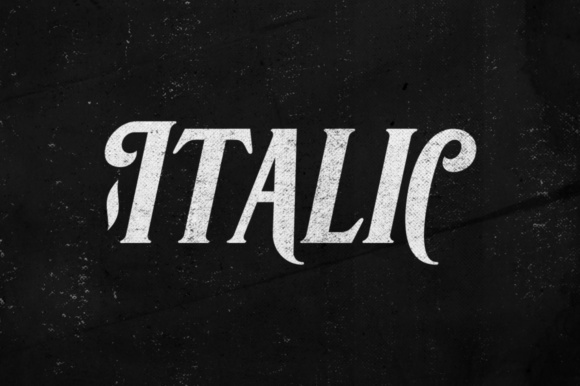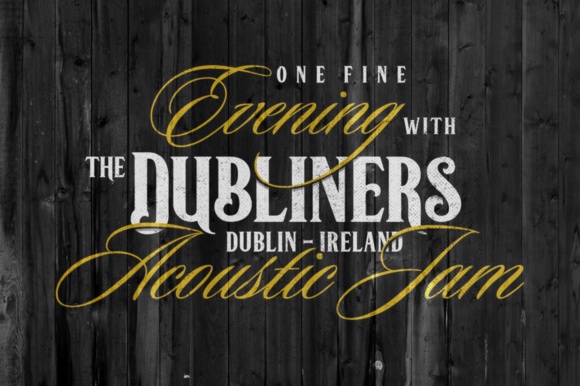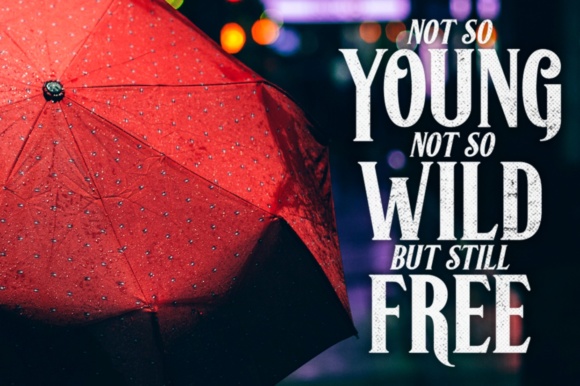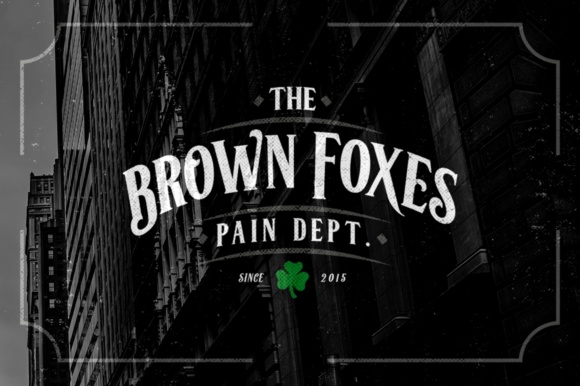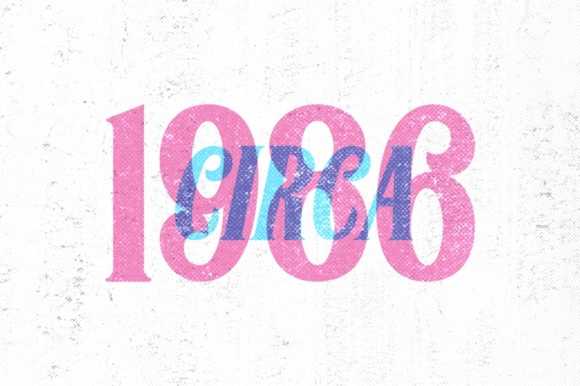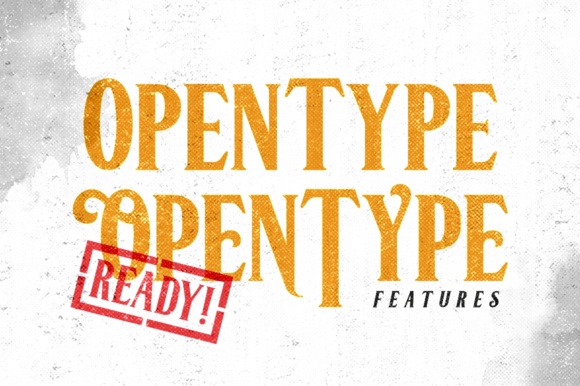
Introducing Greenore Font: A Timeless Classical Typeface
In the world of typography, few fonts manage to evoke a sense of nostalgia and classic elegance. Greenore Font is one such typeface that has captured the hearts of designers and crafters alike with its timeless appeal. Inspired by old liquor and brewery packaging, Greenore is a masterfully crafted font that exudes sophistication and refinement.
The Inspiration Behind Greenore
Greenore’s design is rooted in the rich history of traditional liquor and brewery packaging. The font’s creator drew inspiration from the classic typography found on vintage bottles, labels, and advertisements. The result is a typeface that echoes the luxury and heritage of a bygone era. With Greenore, you can add a touch of vintage charm to your designs, evoking memories of a time when craftsmanship and attention to detail were paramount.
Greenore is characterized by its smooth, yet crisp linework. The font’s curves and lines are meticulously crafted to create a sense of fluidity and elegance. The attention to detail is evident in every aspect of the font, from the subtle variations in line width to the carefully considered letterforms. Whether you’re designing a label, packaging, or editorial content, Greenore’s refined aesthetic is sure to elevate your work.
Key Features of Greenore Font
- Classical design: Greenore’s design is inspired by traditional typography, making it perfect for projects that require a touch of nostalgia and sophistication.
- High attention to detail: The font’s creator has paid meticulous attention to every detail, resulting in a typeface that is both smooth and crisp.
- Versatile: Greenore is suitable for a wide range of applications, from packaging and labels to editorial content and branding.
- Elegant letterforms: The font’s letterforms are carefully crafted to create a sense of elegance and refinement, making it perfect for high-end projects.
Why Designers and Crafters Love Greenore
Greenore has quickly become a favorite among designers and crafters due to its unique combination of classic style and versatility. Here are just a few reasons why:
- Instant recognition: Greenore’s distinctive design makes it instantly recognizable, adding a touch of sophistication to any project.
- Easy to read: Despite its ornate design, Greenore is surprisingly easy to read, making it perfect for body text and headlines.
- Customizable: With its wide range of weights and styles, Greenore can be tailored to suit any design requirement.
- Support for multiple languages: Greenore supports a wide range of languages, making it a great choice for international projects.
Using Greenore in Your Designs
Greenore is an incredibly versatile font that can be used in a wide range of applications. Here are a few ideas to get you started:
- Packaging design: Add a touch of vintage charm to your packaging with Greenore’s elegant letterforms and classic design.
- Branding: Use Greenore to create a sophisticated brand identity that evokes luxury and heritage.
- Editorial content: Add a touch of elegance to your editorial content with Greenore’s refined aesthetic.
- Labels and stickers: Use Greenore to create eye-catching labels and stickers that stand out from the crowd.
Greenore Font is a timeless classical typeface that is sure to captivate designers and crafters alike. With its smooth, yet crisp linework and elegant letterforms, Greenore is the perfect choice for projects that require a touch of sophistication and refinement. Whether you’re designing packaging, branding, or editorial content, Greenore is an excellent choice for anyone looking to add a touch of vintage charm to their work.